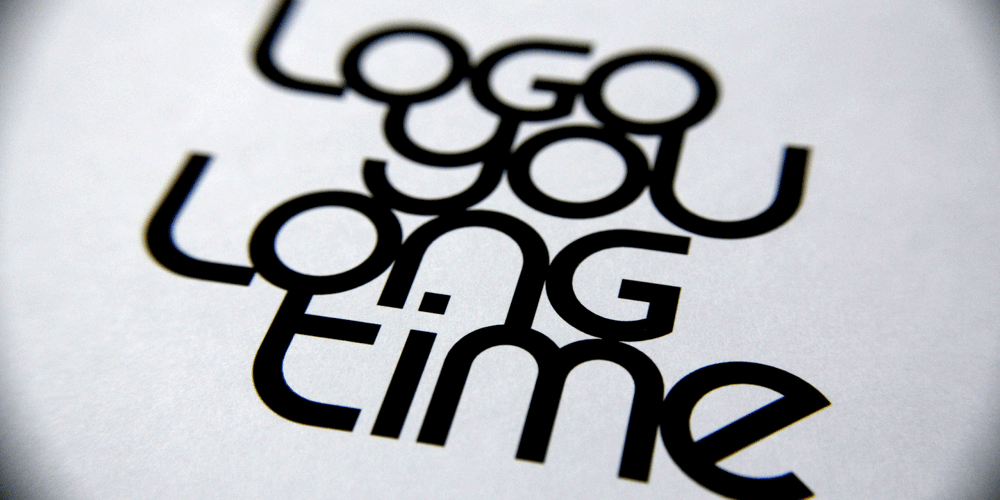
LogoYouLongTime
LogoYouLongTime Font Family was designed by David McCreight and published by David McCreight. LogoYouLongTime contains 1 styles and family package options. LogoYouLongTime is designed specifically for logo design. The letterforms are intentionally simple, intended to fit together in multiple combinations to produce beautiful and balanced positive and negative spaces.